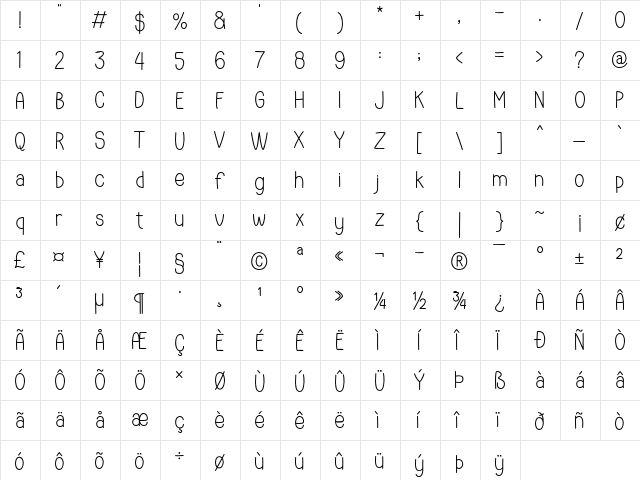
Hoam Regular
| Foundry | Sons Of Baildowi Typefoundry |
| Designer | Mohammad Azmil Bahar |
Design Context for Hoam Typeface
Hoam takes a measured approach to typography — its balanced proportions and neutral character make it a reliable workhorse for both digital and print work.